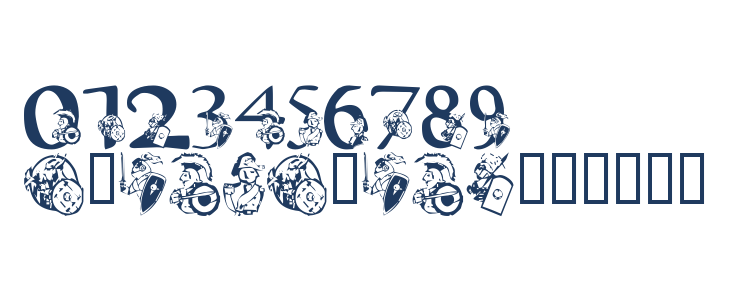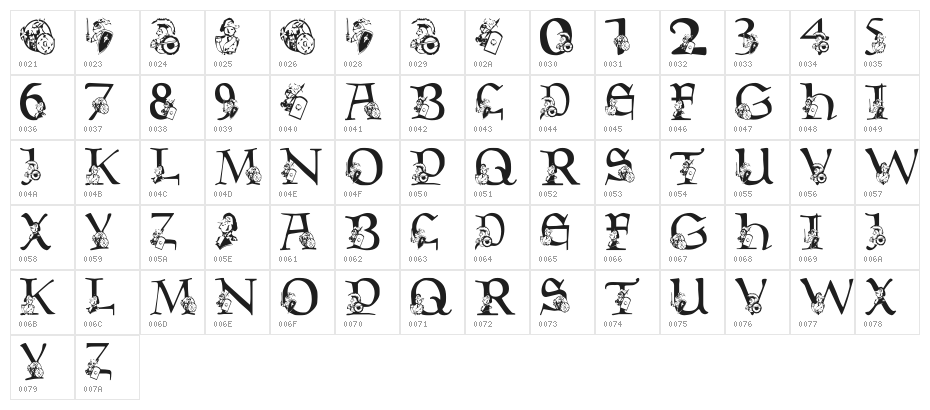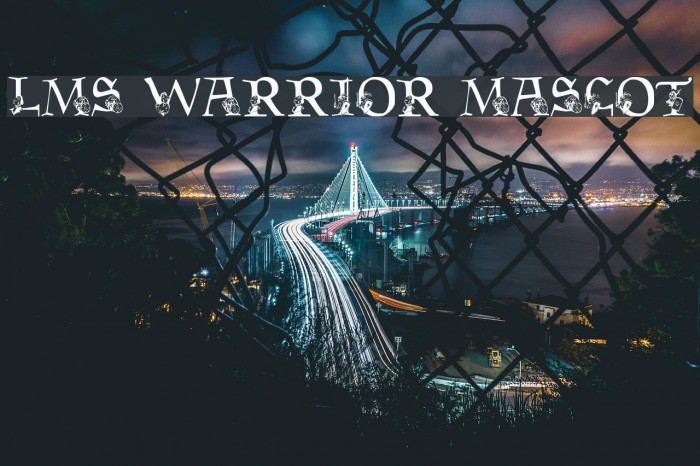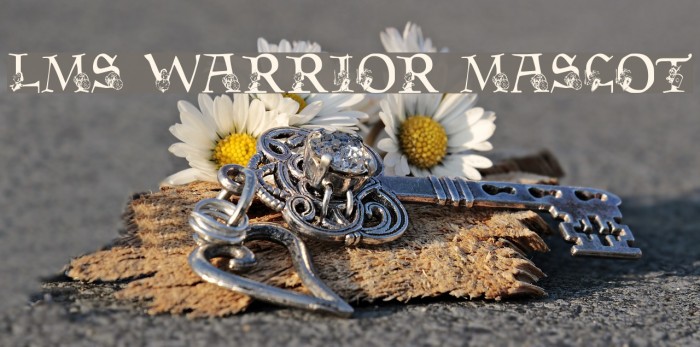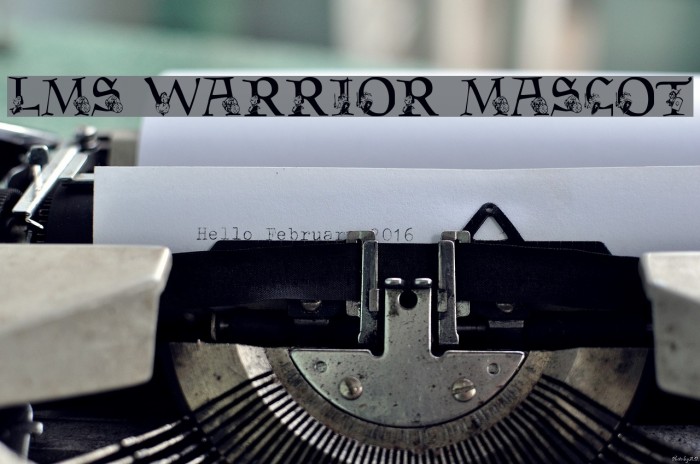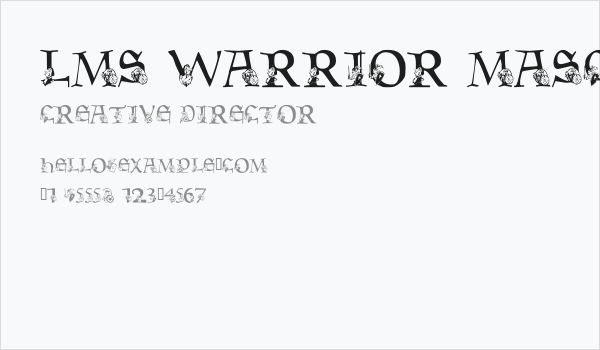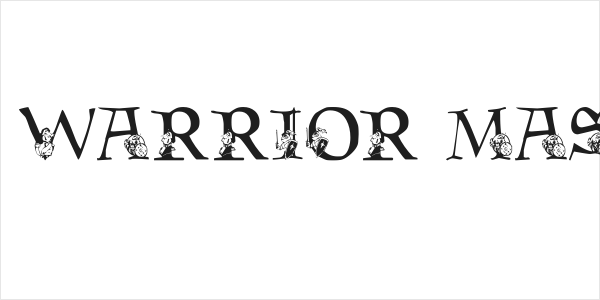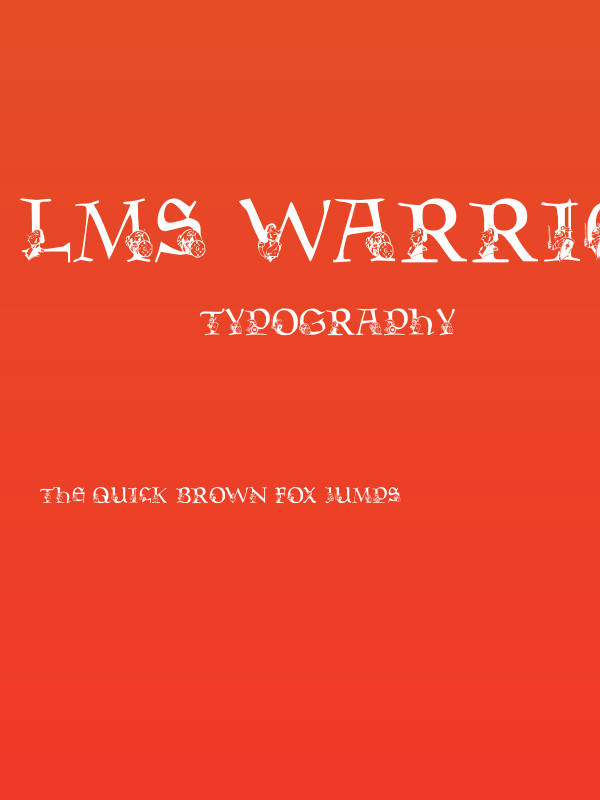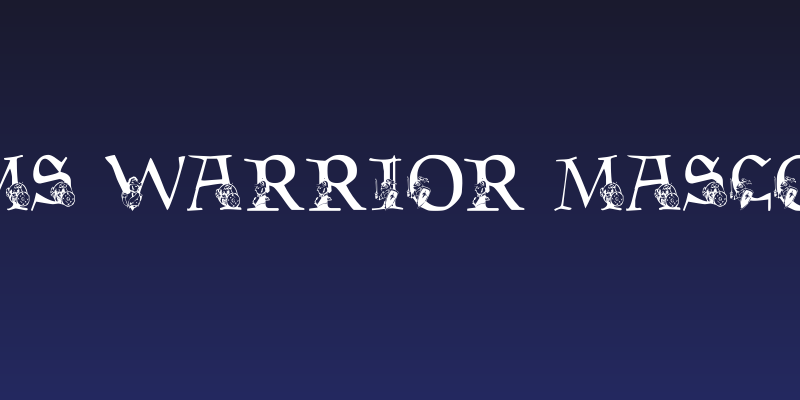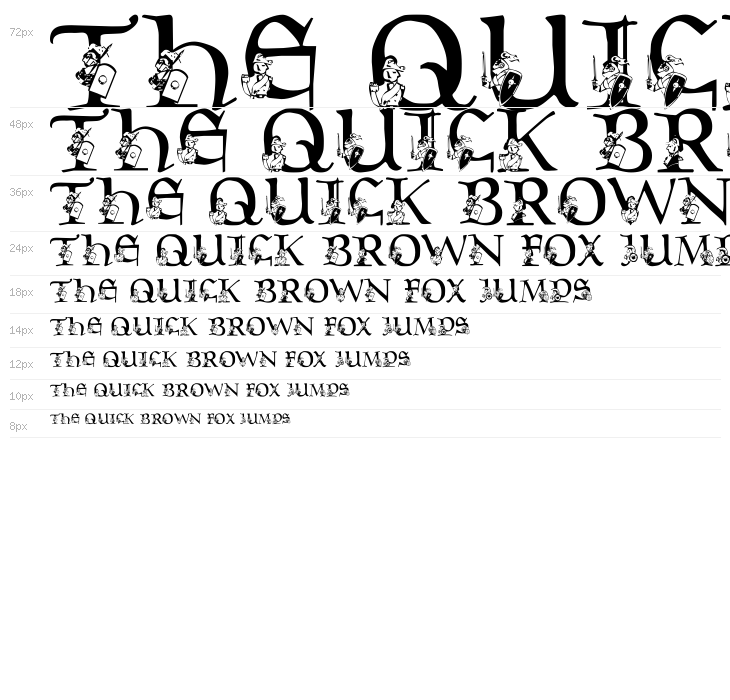
LMS Warrior Mascot Font
LMS Warrior Mascot Description
This decorative font features a unique warrior theme, with each character adorned by intricate illustrations of warriors in various poses. The letters are bold and stylized, incorporating elements of medieval armor and weaponry, creating a dynamic and engaging visual experience. The uppercase and lowercase letters maintain a consistent style, with the warriors integrated seamlessly into the design. Numbers and special characters follow the same thematic approach, making this font ideal for projects that require a strong, thematic presence. The overall design is both playful and bold, capturing the essence of a warrior's spirit.
| Proposed Projects | Ideal for themed events, posters, video game titles, and merchandise that require a bold, thematic presence. |